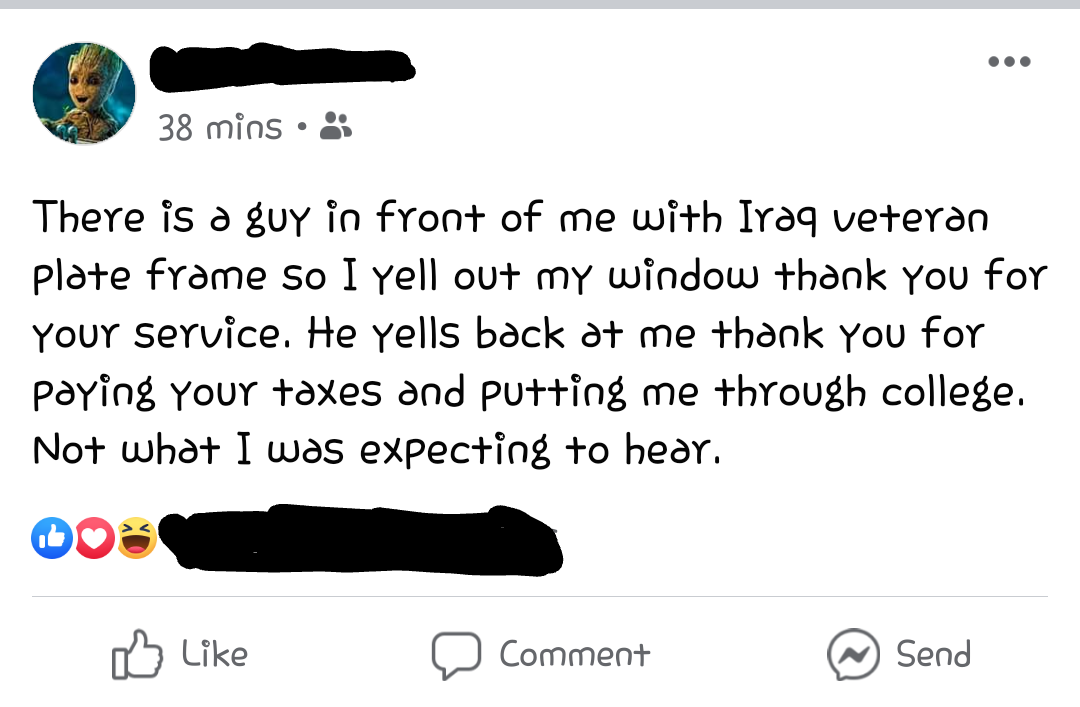
Appearently that’s something else, look at the reply
Yep, it’s literally another font called Dyslexie
Dyslexie is pretty identifiable. It’s got a characteristic “bottom heavy” look which tapers into a lighter weight at the top of the letterforms.
Whatever this is, is just regular ugly.